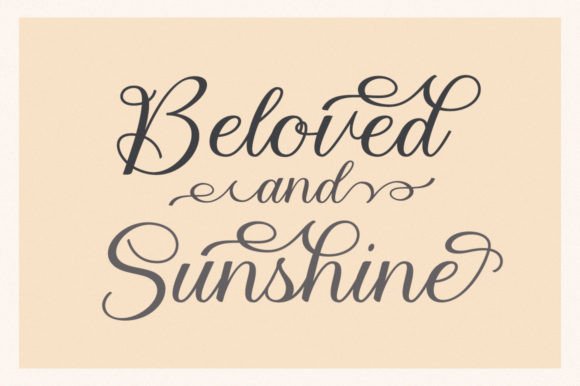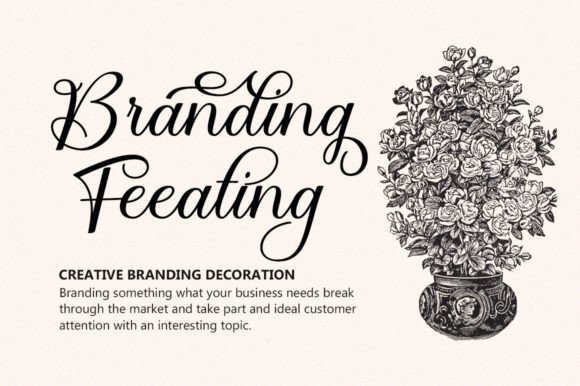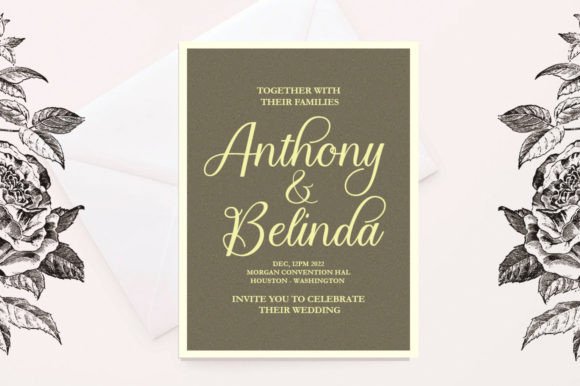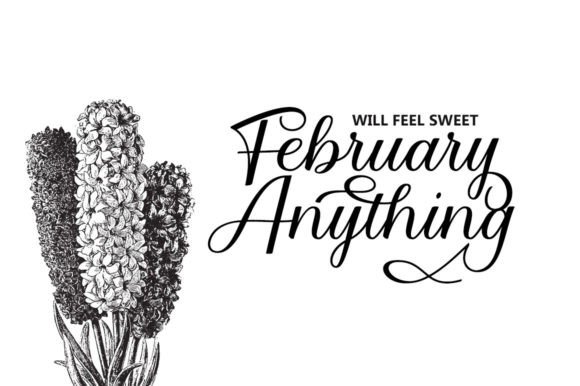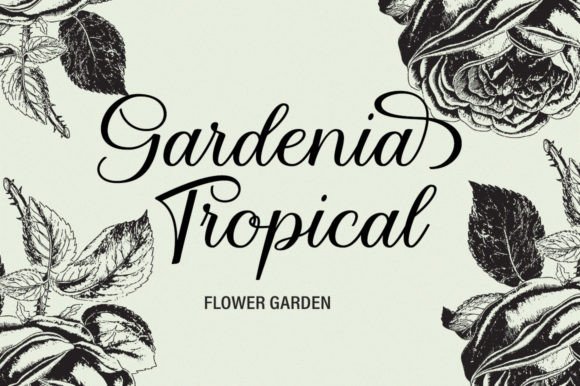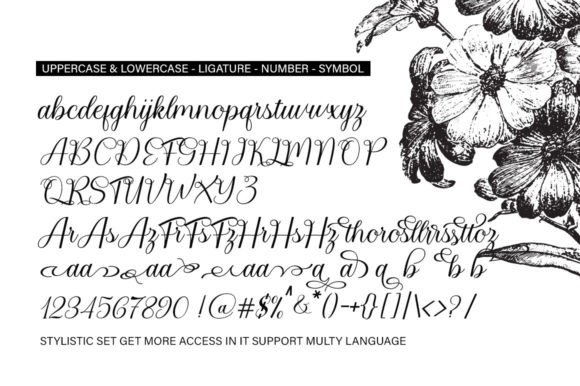
The Art of Handwritten Elegance
There’s something magical about holding a beautifully crafted wedding invitation in your hands, feeling the weight of the paper and the elegance of the script. It’s a moment that can transport you to a world of love, joy, and celebration. As designers, we strive to create these moments for our clients, and that’s where the Bailies Script Font comes in – a stunning handwritten font that adds a touch of sophistication to any project.
With its fluid strokes and delicate curves, the Bailies Script Font is perfect for creating refined and elegant designs. Whether you’re designing a wedding invitation, a logo, or a branding package, this font is sure to impress. Its PUA encoding allows for easy access to all the amazing glyphs and ligatures, making it a valuable tool for designers looking to add a personal touch to their work.
Bailies Script Font Key Features
- Font Family: Bailies Script Font is a beautiful, elegant script font.
- Unique Characteristics: Features flowing connections between letters, making it ideal for creative and artistic applications, such as invitations, wedding designs, and branding materials.
Bailies Script Font Review
I recently had the chance to work with Bailies Script Font, and I must say it’s a unique and charming addition to any design project. Here are my honest thoughts on this font.
- Handwritten feel: Bailies Script Font has a lovely, handwritten feel that’s perfect for creating a personal and approachable tone.
- Whimsical touch: The font’s irregularities and flourishes add a touch of whimsy and playfulness that’s hard to find in more traditional fonts.
- Crafting: The font has a very good range of character for a script font, from basic letters to punctuation marks.
- Limited legibility: The font’s irregularities and connections between letters can make it difficult to read, especially at smaller sizes.
- Lack of consistency: Some letters and punctuation marks don’t quite match the overall feel of the font, which can be jarring.
- No bold weight: The font only comes in a single weight, which can limit its versatility in certain design projects.
Overall, Bailies Script Font is a lovely addition to any designer’s toolkit, but it’s not without its limitations. With careful use and attention to legibility, it can add a unique touch to your designs.
Getting the Most Out of Bailies Script Font
For the best results, use Bailies Script Font for titles, headings, and short paragraphs. It’s perfect for creating a sense of elegance and sophistication in your designs.
Experiment with different font sizes, colors, and alignments to find the perfect combination for your project.
Bailies Script Font is ideal for:
Branding and logos
Magazine and book titles
Special event signage and decorations
Alternatives to Bailies Script Font
Great Vibes is a modern, elegant script font perfect for creative projects, advertising, and editorial design. It features flowing connections and a relaxed feel, making it ideal for headings and titles.
Comparison to Bailies Script Font: Great Vibes has a more contemporary feel and a wider range of characters, making it a good choice for designers who want a modern script font. However, it may not have the same level of sophistication and elegance as Bailies Script Font.
Carolyna Pro is a luxurious, high-end script font ideal for fashion, beauty, and luxury brands. It features intricate connections and a sophisticated feel, making it perfect for high-end advertising and packaging design.